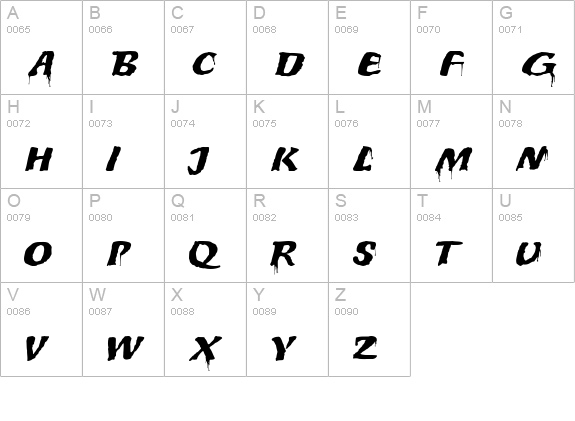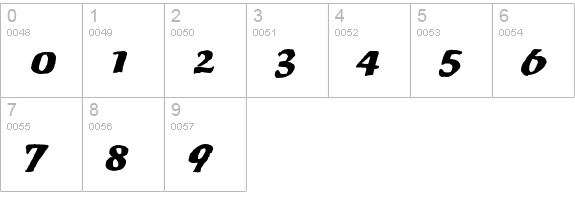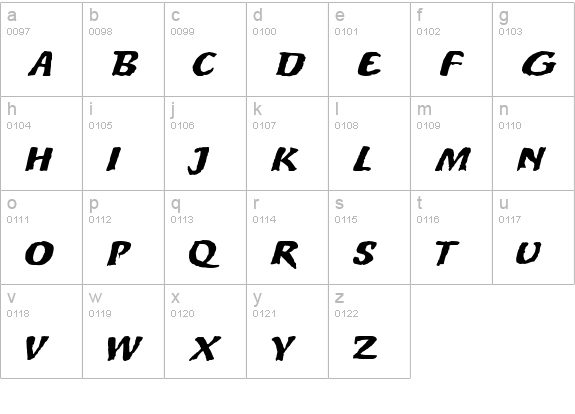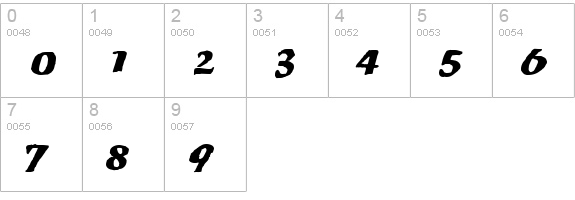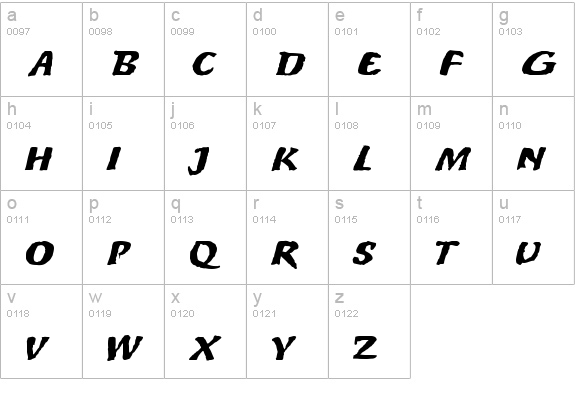
Protest Sign MF Font Details
Protest Sign MF font is a bold and eye-catching display typeface that exudes a sense of rebellion and activism. With its sharp angles and bold lines, this font is perfect for making a statement on protest signs, posters, banners, and other graphic designs with a powerful message. The Protest Sign MF font is designed to grab attention and convey a sense of urgency, making it ideal for projects that aim to inspire change and challenge the status quo. Best of all, Protest Sign MF font is available for free download at FontsMarket.com. You can easily access this striking typeface and use it in your projects without any cost. Embrace the power of Protest Sign MF font in your designs and let your voice be heard with style and impact.